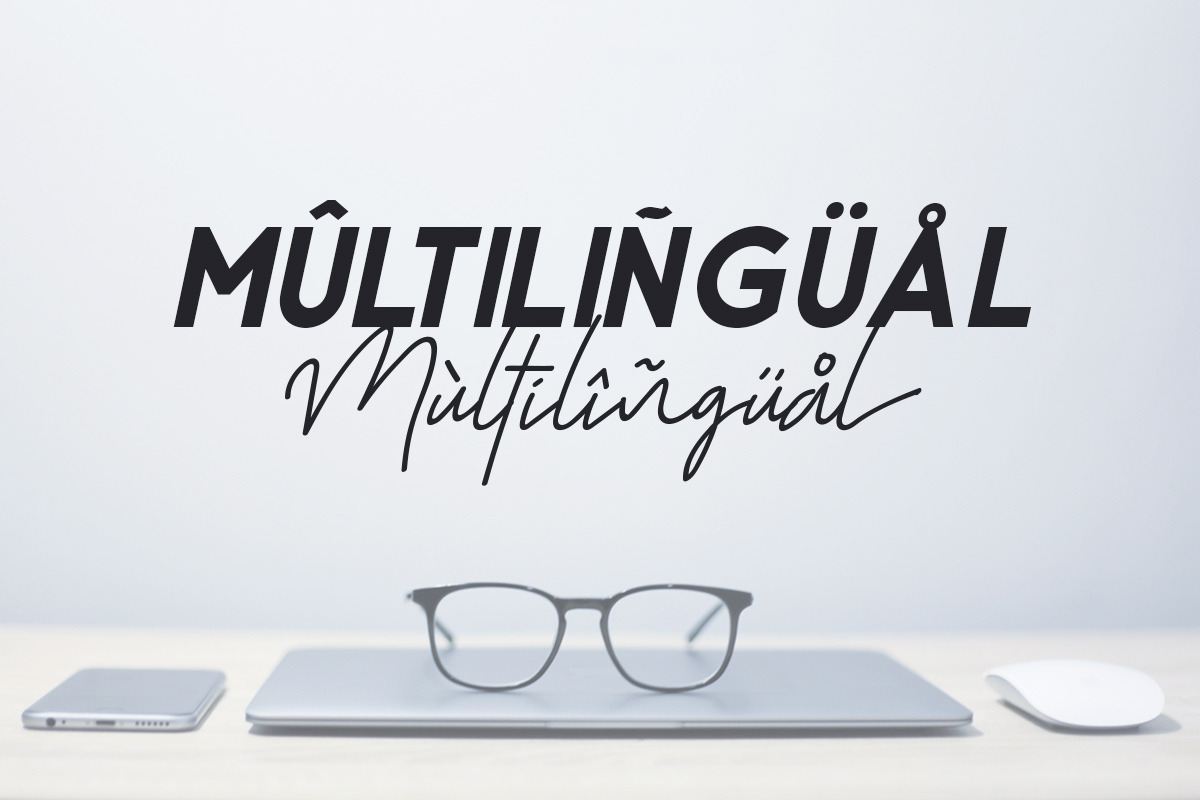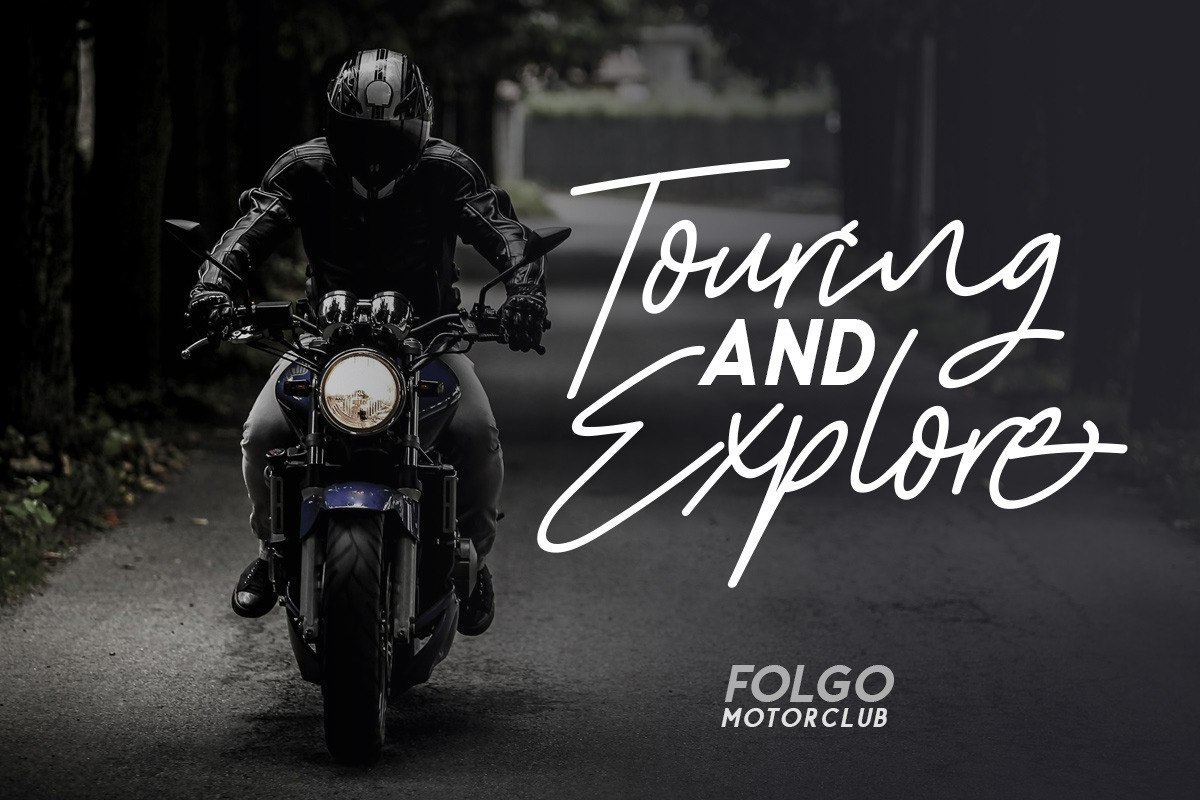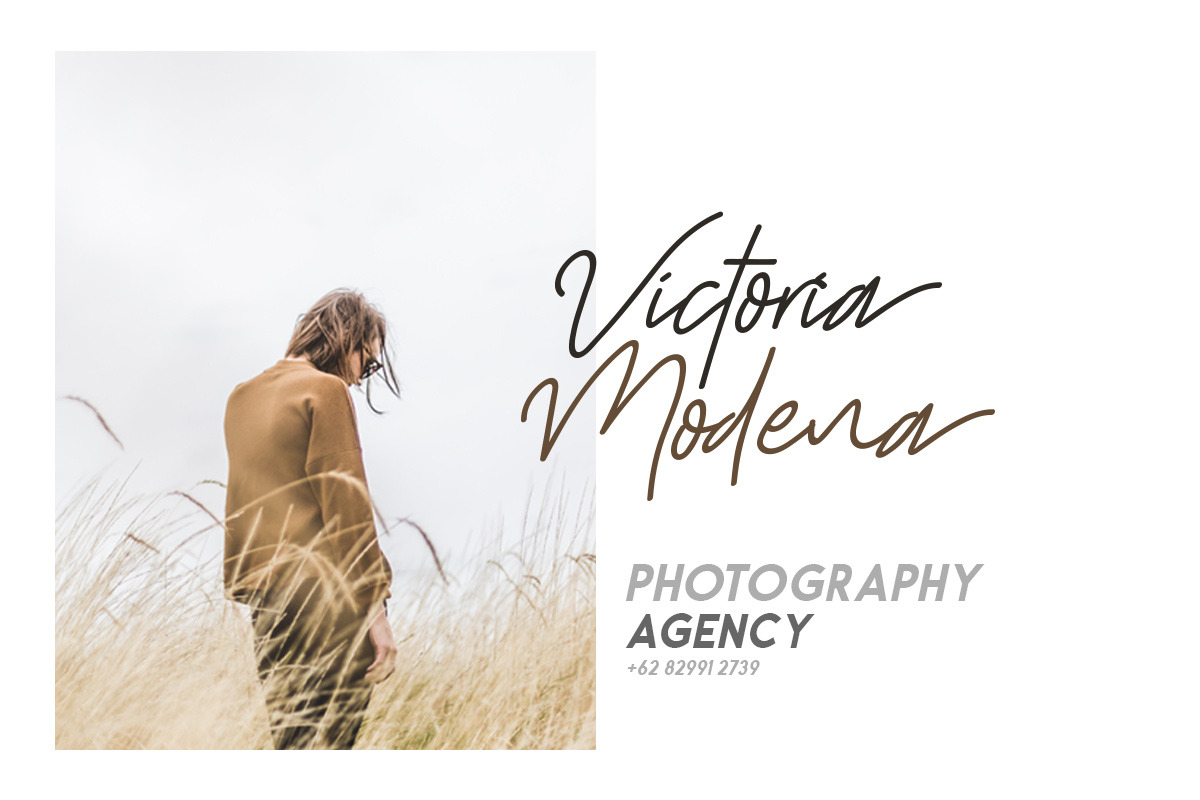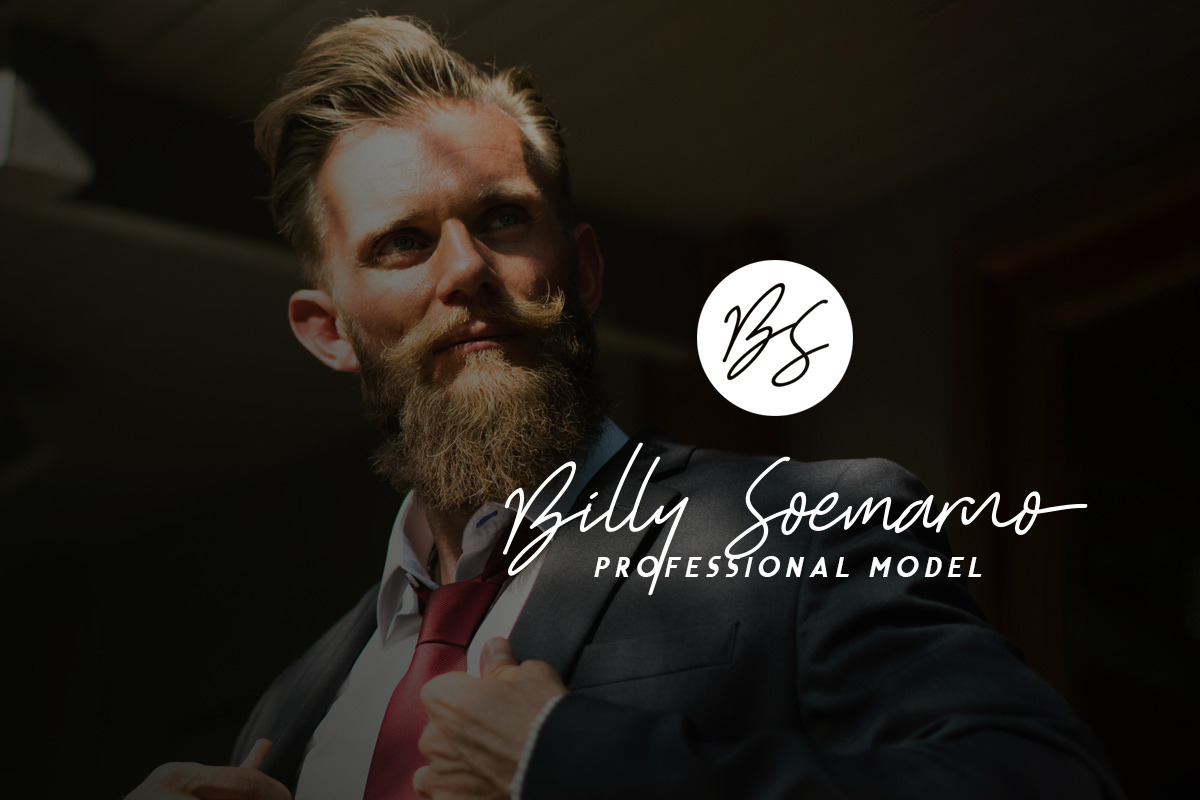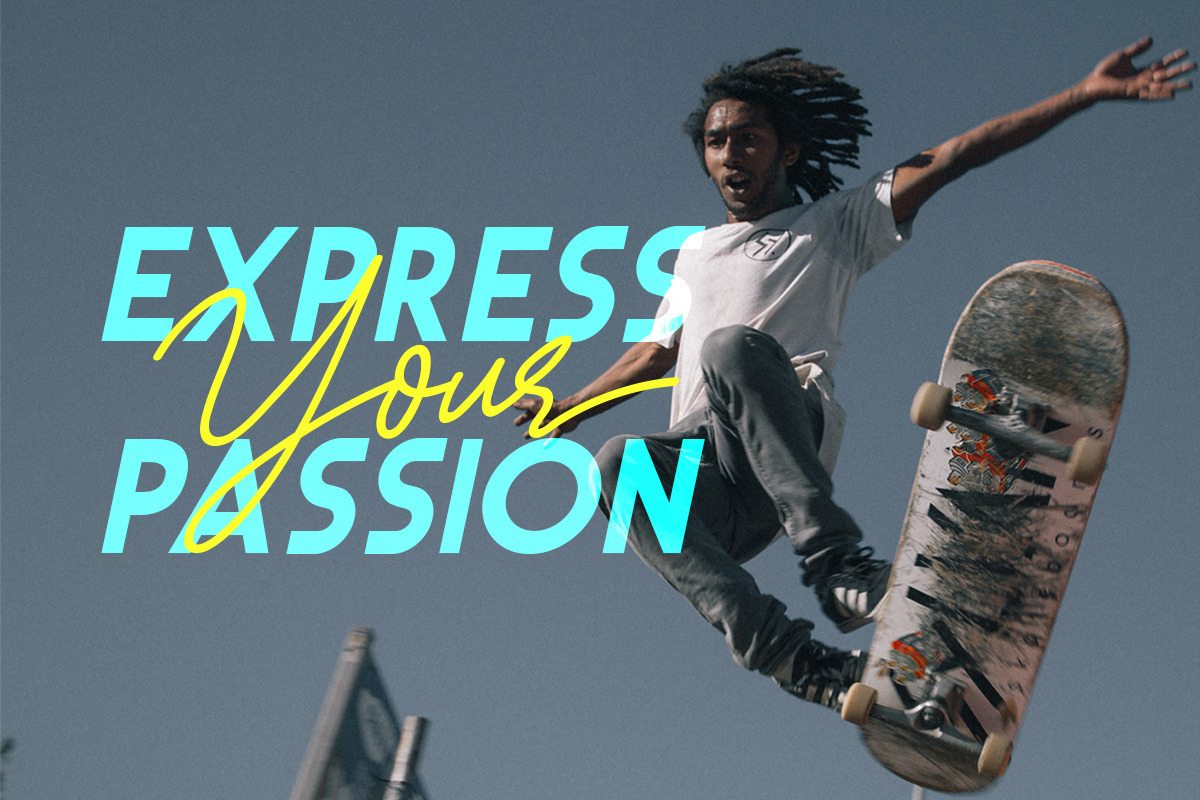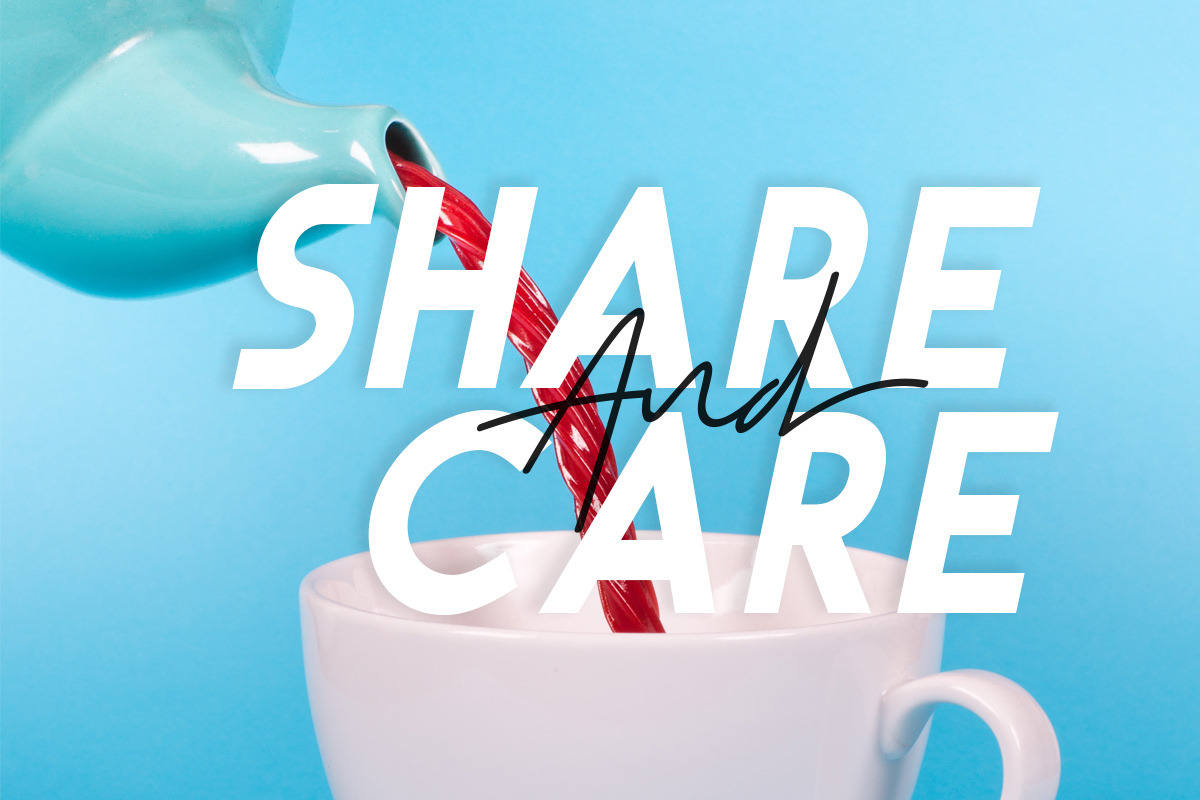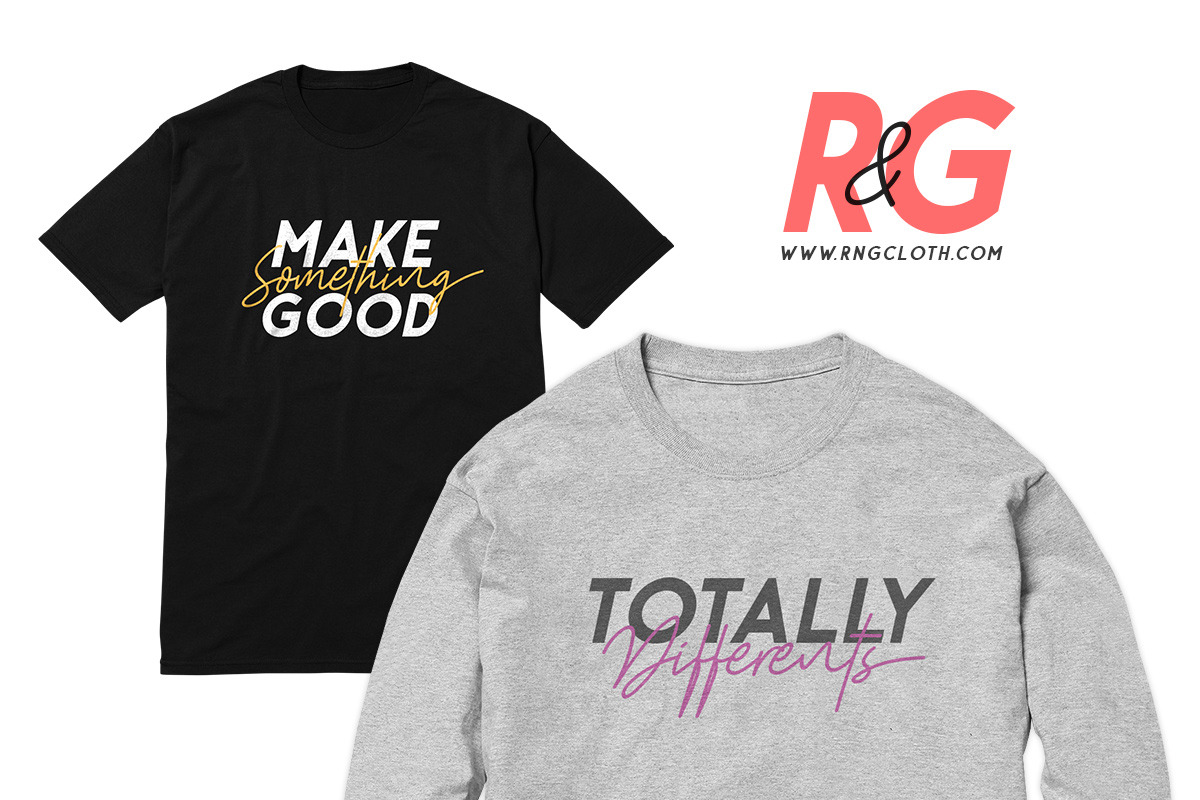
Big Reputation - Font Duo
Say hello to Big Reputation - Font Duo!
This font duo contain my two best selling font. Carrol and Shutter Stone. I choose best two from all style in those font family, and combined it for become font duo. You can make your own signature logo, quotes, or whatever with this two totally different typeface. Both font also support multilingual, any symbol and already PUA Encoded.
- Carrol ExtraBold Italic
- Shutter Stone Italic
Why Big Reputation - Font Duo is worth a look
Big Reputation - Font Duo by Sarid Ezra fits naturally into Branding, posters, packaging, typography.